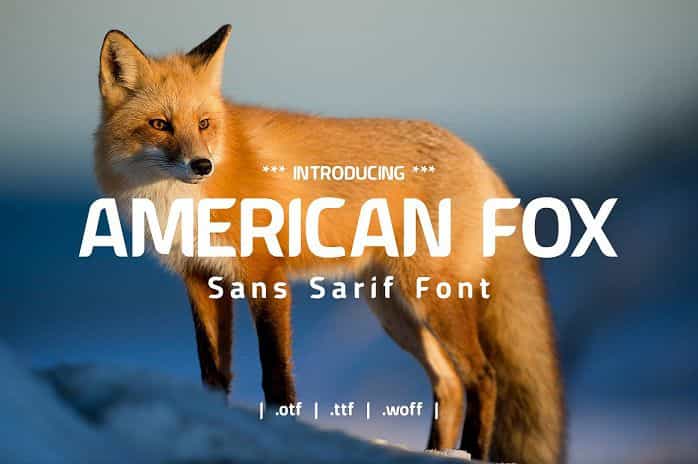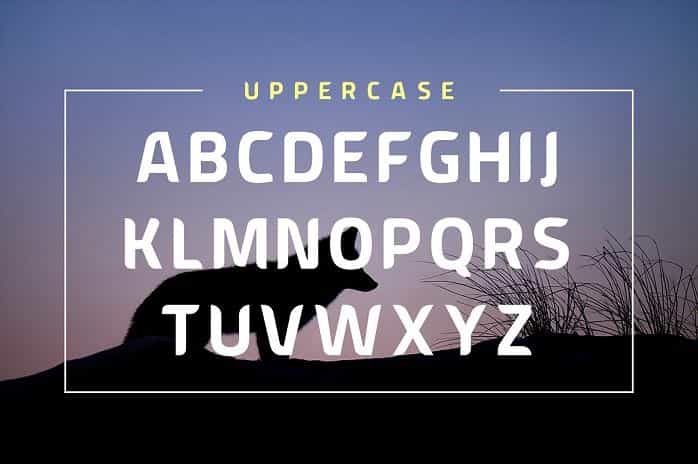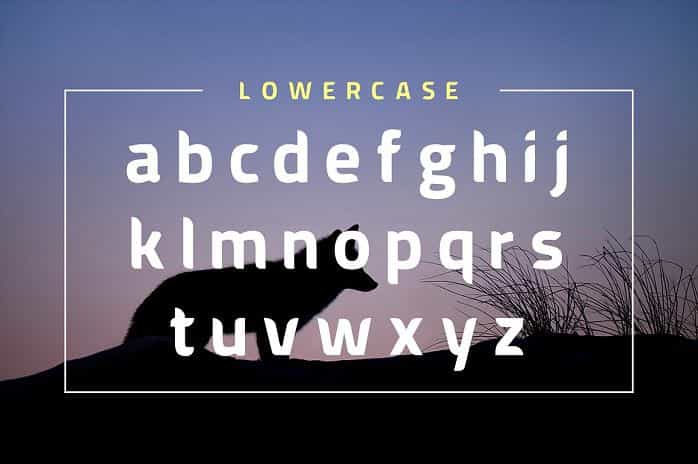
You will find that American Fox font is absolutely awesome for poster, for logo, music cover, clothing, and many many cool design projects. American Fox font is in both upper and lower case letters. Numeric and international font. Get the font now and with updated to the shop for the new and exclusive fonts.